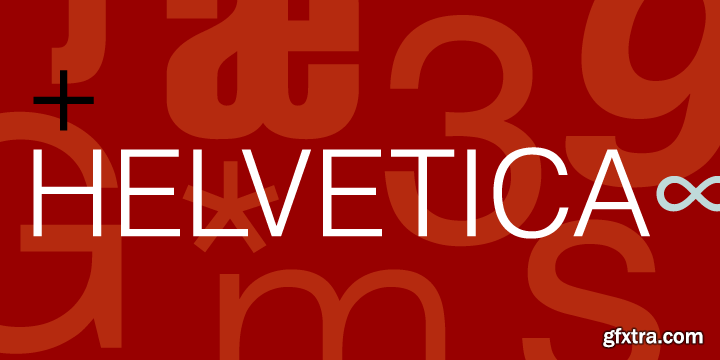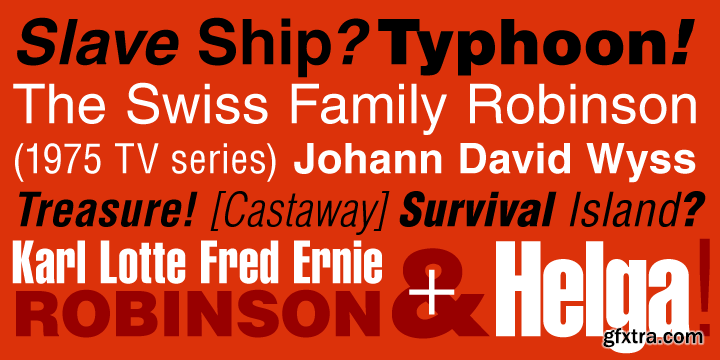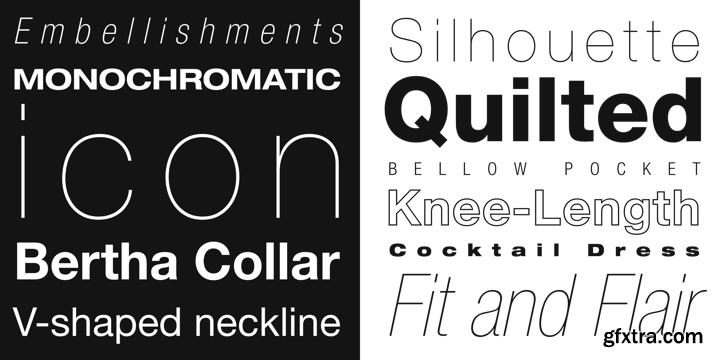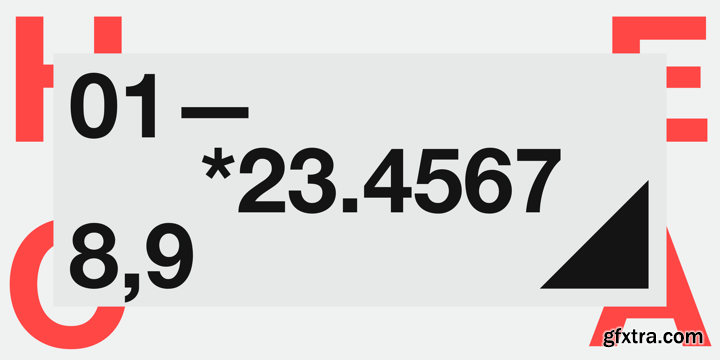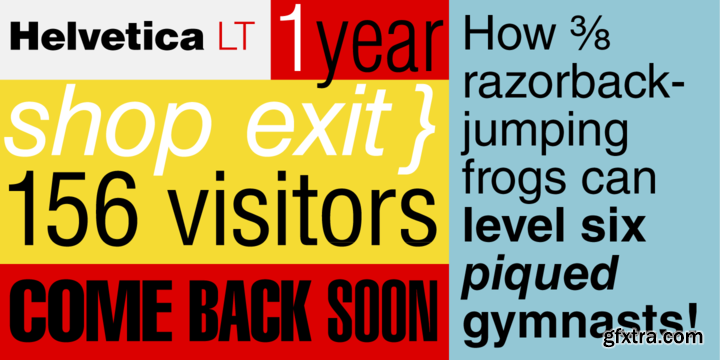
Helvetica Ultimate Font Collection
wink This typeface was initially released as Neue Haas Grotesk, and was designed in 1957 by Max Miedinger for the Haas’sche Schriftgiesserei (Haas Type Foundry) in Switzerland.
The name was changed to Helvetica (an adaptation of Helvetia, the Latin name for Switzerland) by Walter Cunz when D. Stempel AG, a major stockholder in Haas, reworked the design for Linotype GmbH in Frankfurt, a major stockholder in Stempel. The Mergenthaler Linotype Company in New York, then a major stockholder of Linotype GmbH, adopted the design, and it rapidly became the most popular sanserif in the world, replacing Futura.
Helvetica is designed as a strong central series, with condensed and extended forms and extreme weights adapted and added later, a system which suited Linotype mechanical limitations and marketing philosophy, but which resulted in a family of weights that were not as well coordinated as they might have been.